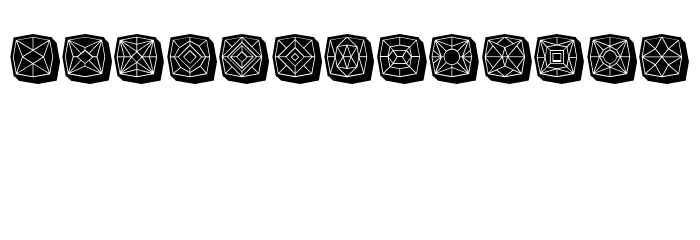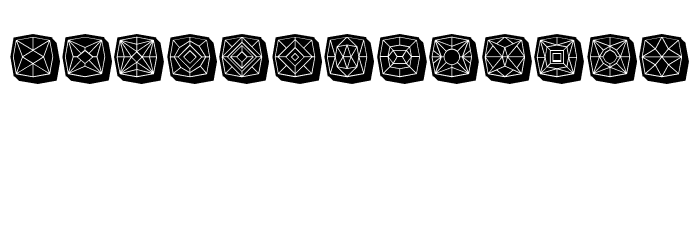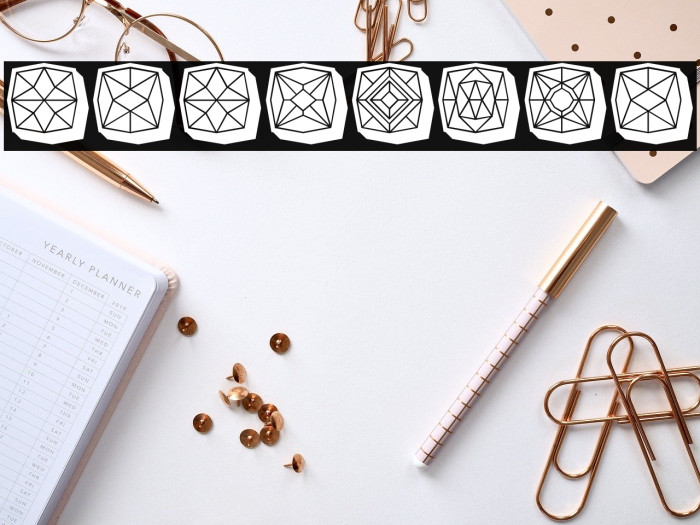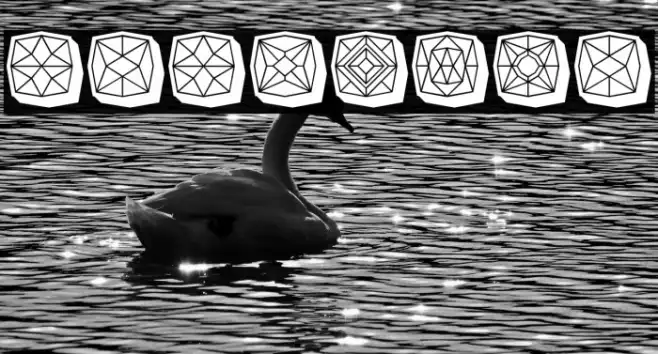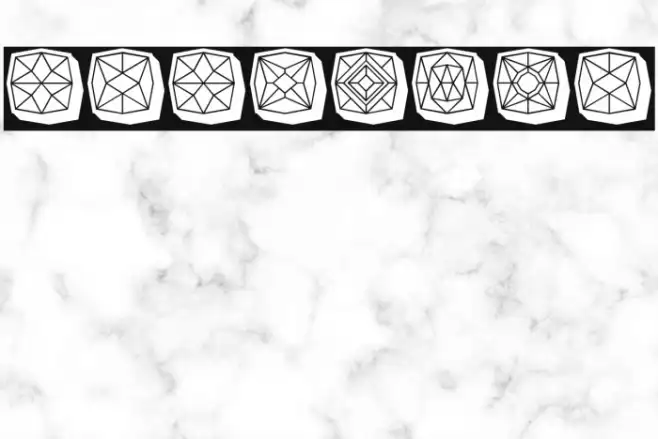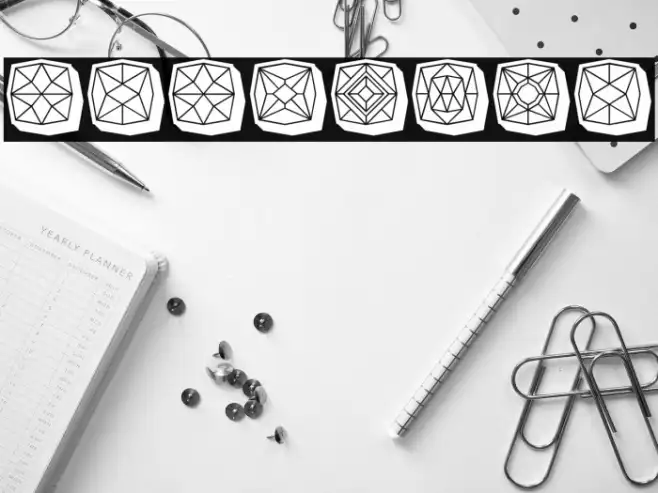
Maumbo Regular Font
This design features a series of intricate geometric shapes enclosed within hexagonal outlines. Each character is uniquely crafted with a complex pattern of lines and angles, creating a visually striking and decorative appearance. The uniformity of the hexagonal shapes provides a cohesive structure, while the internal designs vary, offering a sense of diversity and creativity. The overall look is modern and abstract, making it suitable for artistic and decorative purposes.
Intricate geometric shapes within hexagonal outlines, offering a modern and decorative style.
- Font: Maumbo Regular
- Proposed Projects: Ideal for use in artistic designs, decorative projects, branding elements, or as unique icons in digital media.
- Overall Style: Modern, Decorative
- Use Case: Logos, Decorative elements, Artistic projects